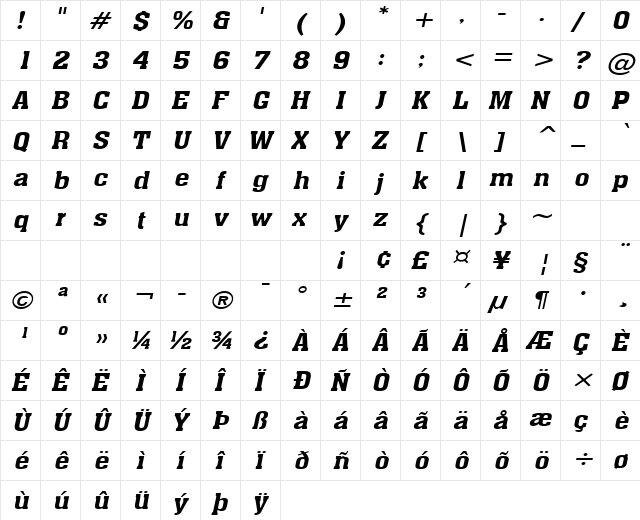
Ache-Extended Bold Italic
Ache-Extended takes a measured approach to typography — its balanced proportions and neutral character make it a reliable workhorse for both digital and print work. Its italic angle brings a sense of urgency and motion to the letterforms. The heavy weight commands attention and anchors typographic hierarchies.
Pro Tip: Use Ache-Extended for emphasis, pull quotes, and subheadings where its slanted energy can add rhythm to the layout.